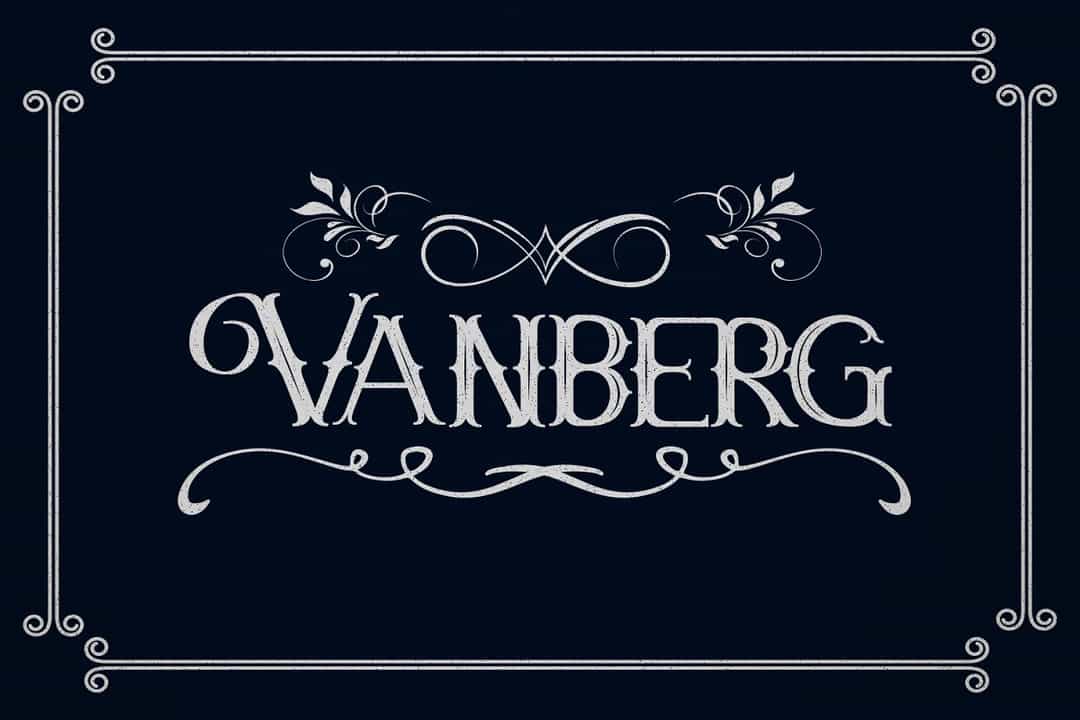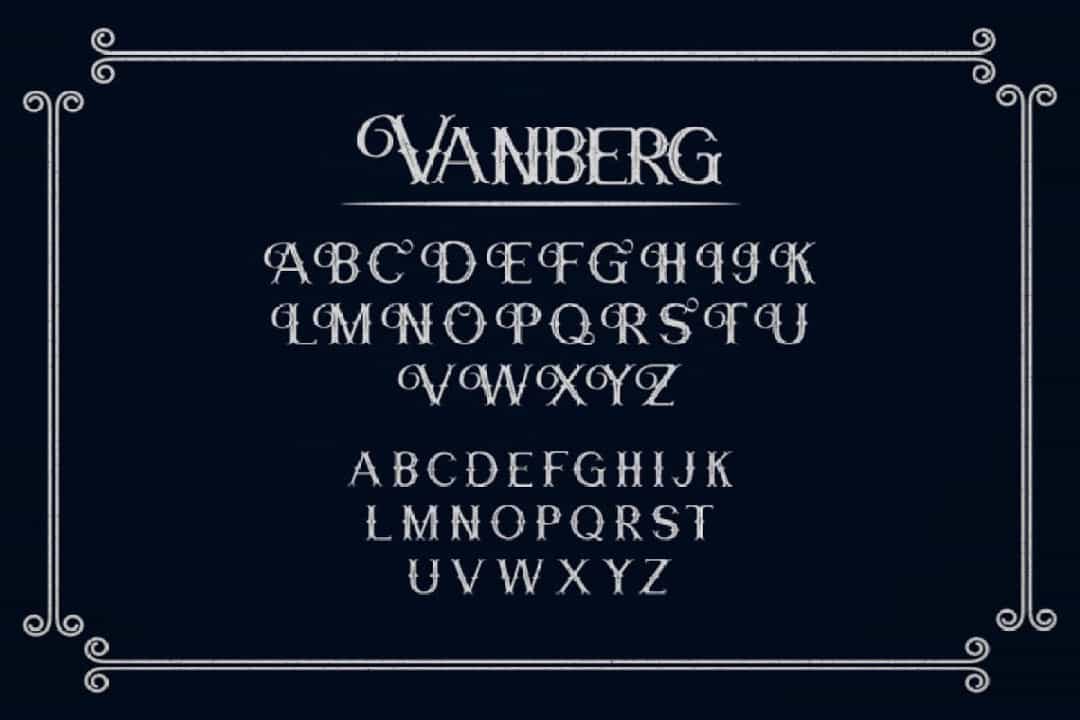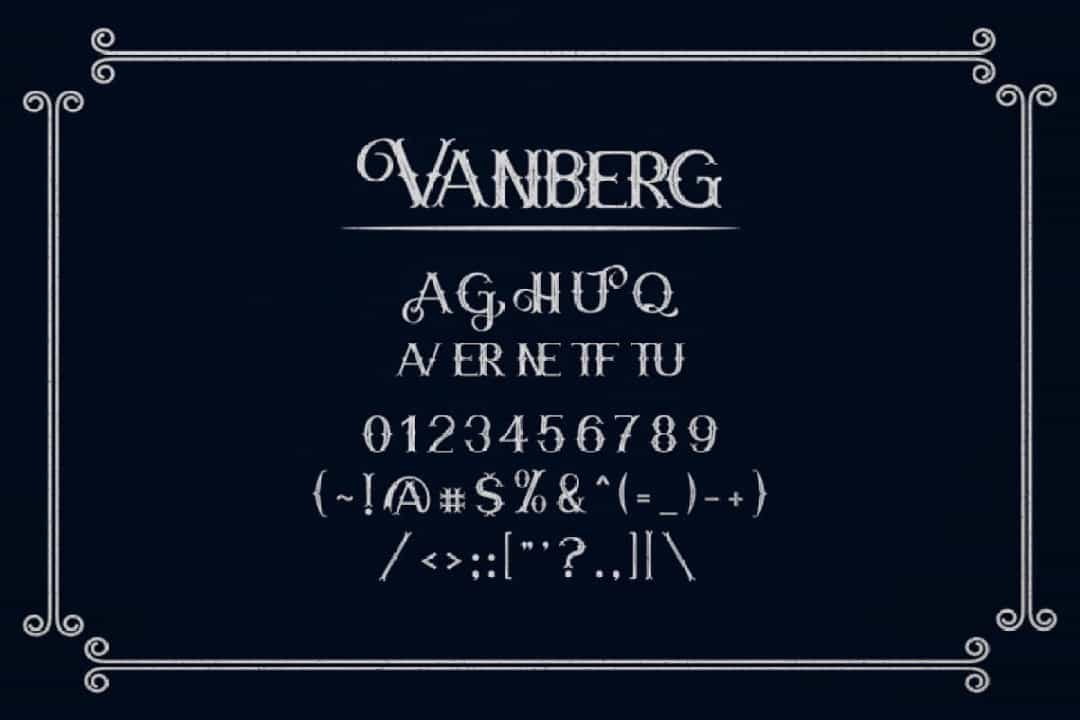
Vanberg Vintage is an original Modern Victorian handlettering font that is inspired by the handwriting from early 1800’s with many decorative options for the letters to choose from and make the font more antique looking in the contemporary world.